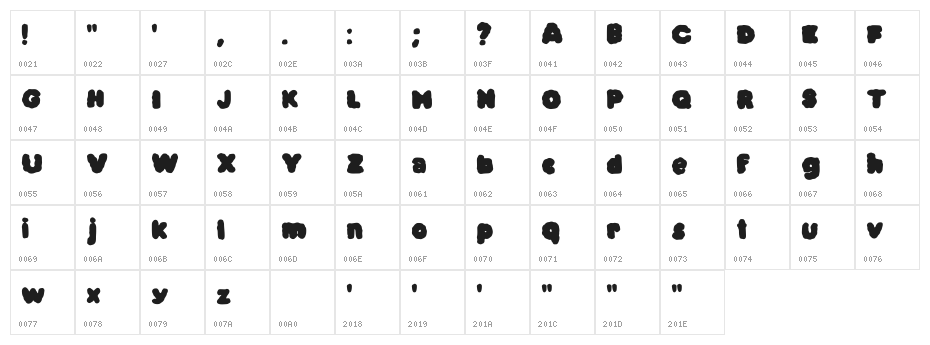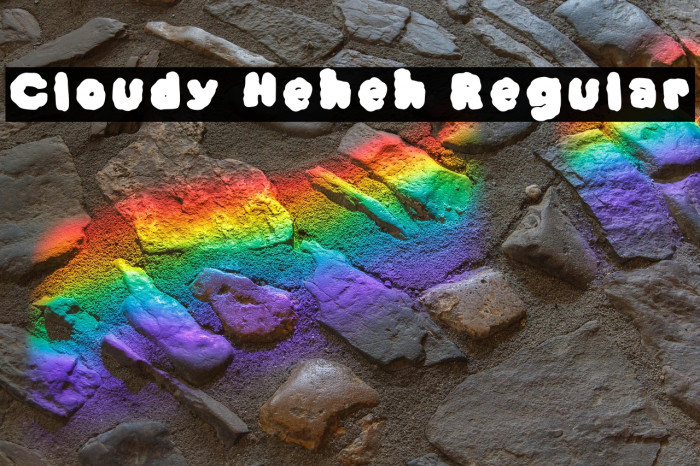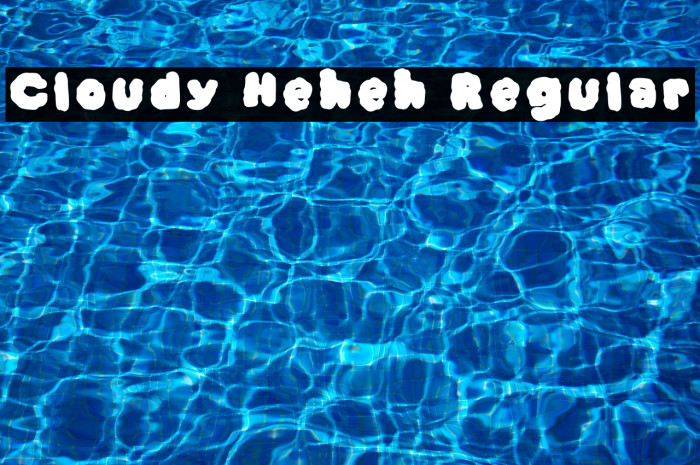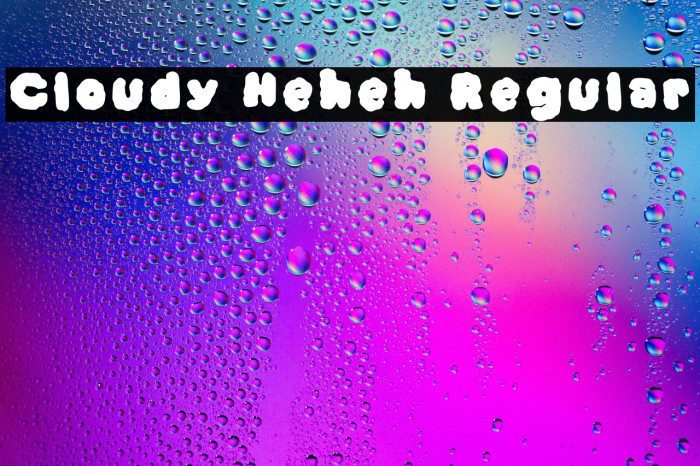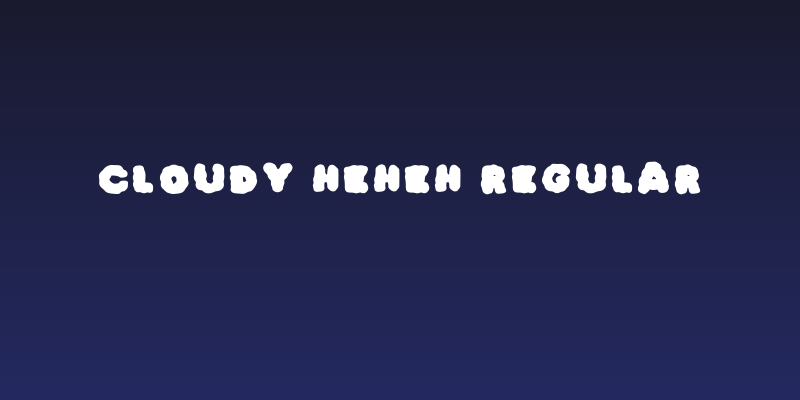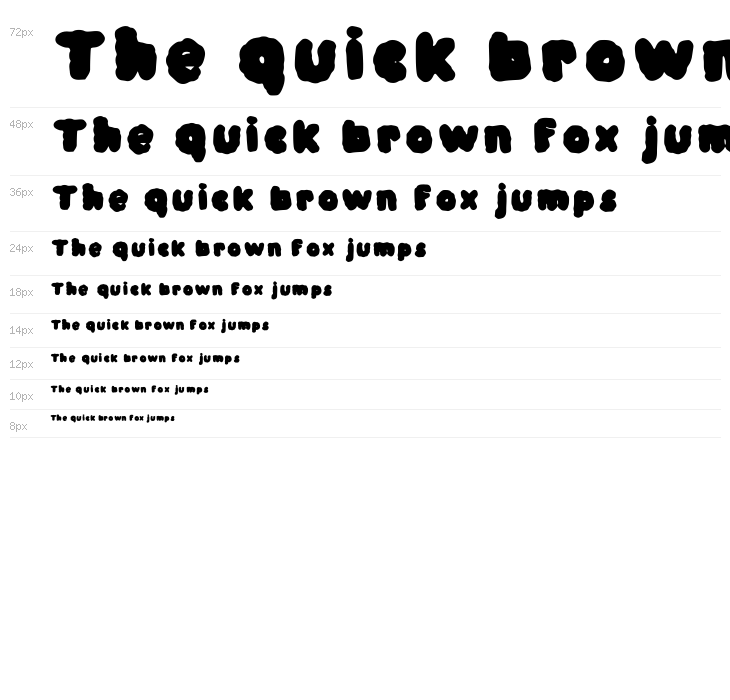
Cloudy Heheh Regular Font
Cloudy Heheh Regular Description
This playful and whimsical font features bold, rounded characters that resemble fluffy clouds. The letters have a soft, puffy appearance, creating a sense of lightness and fun. The uppercase and lowercase letters maintain a consistent style, with each character appearing as if it is floating. The numbers and special characters follow the same design, ensuring uniformity across the font. This font's unique style makes it ideal for projects that require a touch of creativity and imagination.
Overall StylePlayful, Whimsical
Proposed ProjectsIdeal for children's books, playful branding, party invitations, and creative posters.